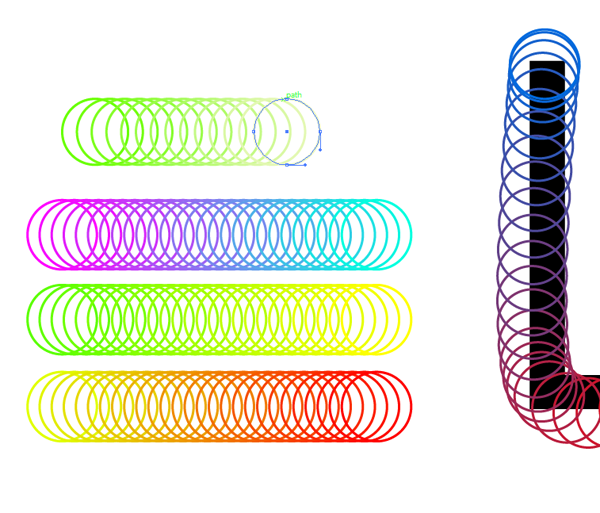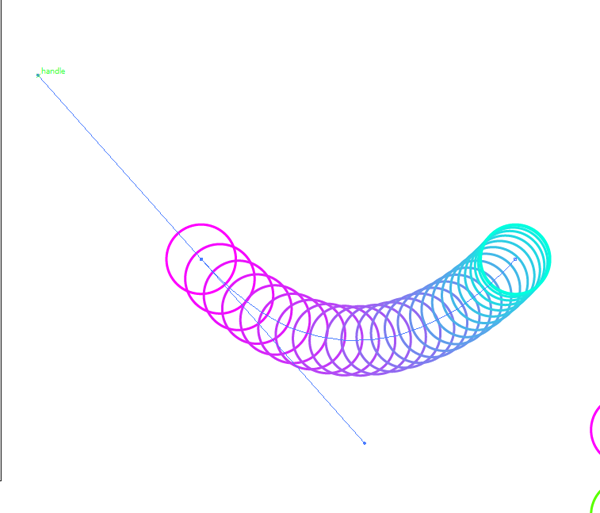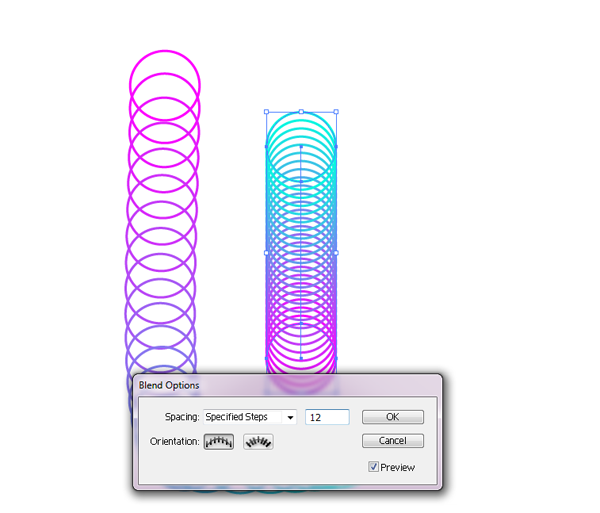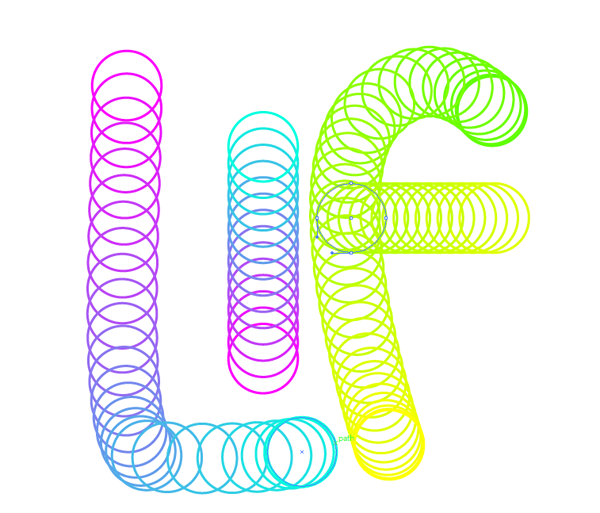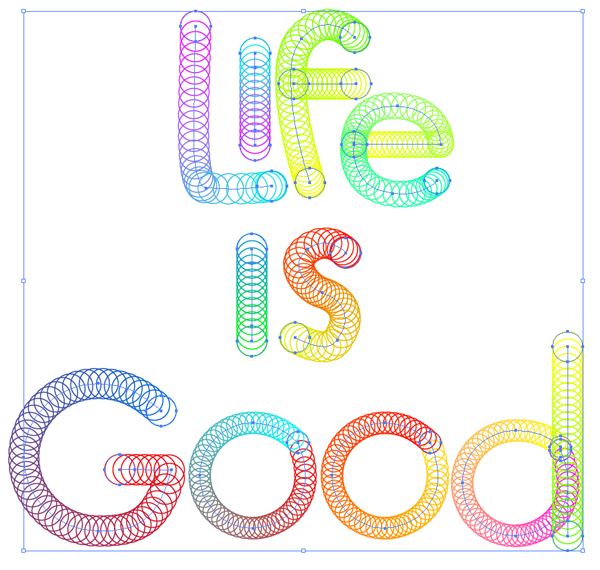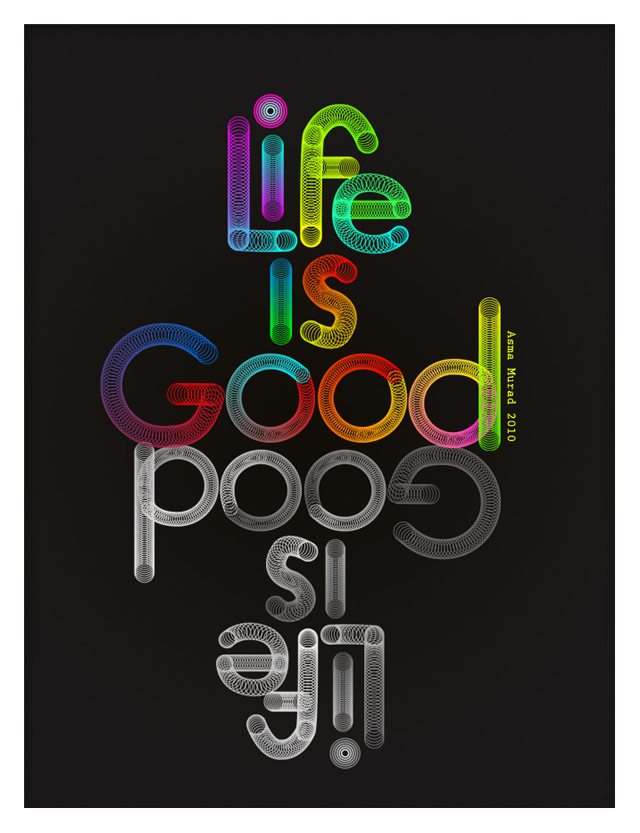
Creating a spine
Below specified steps will show you how i used it You can choose to have a typed font and outline it OR simply write your own, i started off by typing the wordings as a guide line but later adjusted the direct nodes to change the font to my requirement. This outline of the Font i call "Spine".
Creating blends(Brushes)
Next step was to create a few basic blends which i can use and apply to the "Spine" of the lettering that i created.
I chose a single circular shape with a colored stroke and no fill and will create options for blend. These will somewhat work like Brushes for illustrator in this case.
To create a blend select both objects and go to Object> Blend > Blend option
Specify the number of steps , dont worry about how it will fit a shape on a spine this can be easily edited later.
Applying the blend to the spine
In order to place this BLEND BRUSH over the spine select the blend and the Spine go to Object>Blend > replace spine.
Editing the blends and spines
*Once you've created a blend, you can edit it in a variety of ways. It should come as no surprise to you at this point to learn that blends are live in Illustrator, meaning you can adjust them even after the blend is applied. To do so, using the Direct Selection tool, click a key object and change its color, shape, position, attributes-whatever-when you do, Illustrator simply redraws the blend to incorporate the change
Should you like to change the color of the applied blend use direct selection tool to select the shape of one end and edit it. Maybe smaller , altered or color it will change easily . Can also be done to the Applied spine.
You can easily change the dynamics of the shape by editing the form of the spine using direct selection tool
The Form
The Steps
You can edit the number of steps according to the shape requirement which means that if i require to reduce the number of steps involved in blending i will simply edit the number of steps by selecting the blend option again ( while i keep the object to be edited selected) and reducing the specified steps. see below.
The Color
Another interesting aspect is that you can use the direct selection tool to change the color of the entire blend , simply direct select the shape and pick the nearest color that you would like to continue blend from.
Preview of the Spines and blends skeleton
Final Artwork